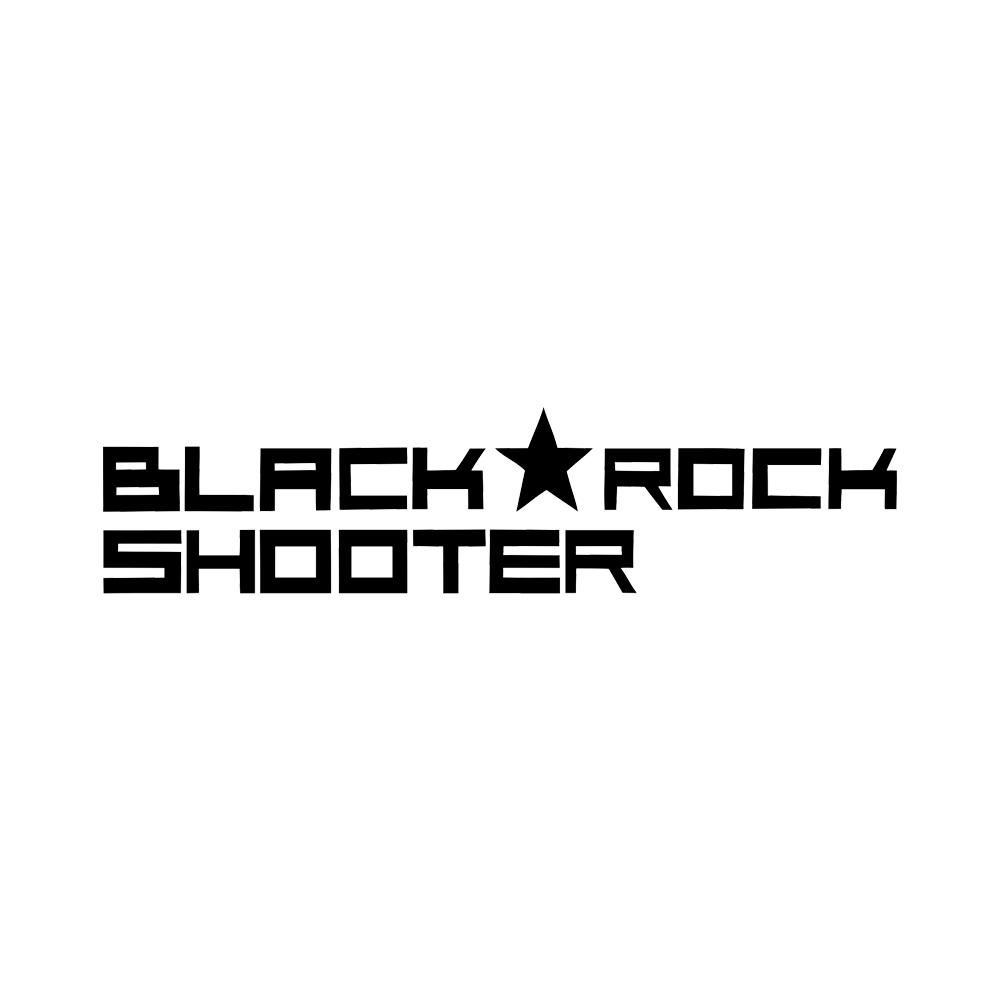
Black Rock Shooter Font
ActionBlack Rock Shooter is a Japanese media franchise that includes an anime television series, video games, and a manga series. The story follows the titular character, a mysterious girl with a blue flame in her eye, as she battles monsters in a post-apocalyptic world.
The font used on the cover artwork for the Pilot Edition DVD is probably Megaton Regular, a square sans serif created by dustBUST.